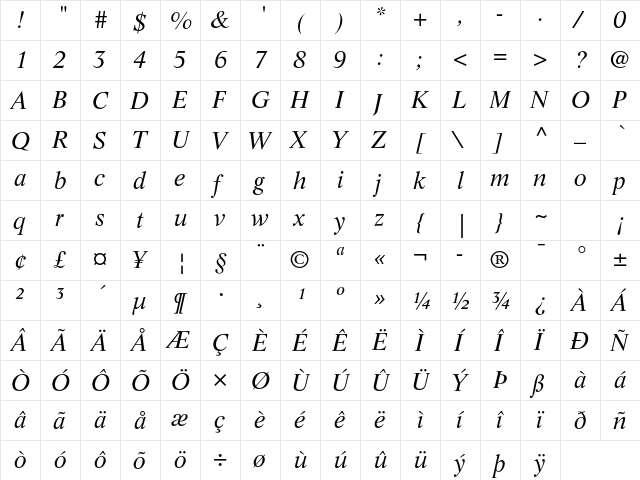
Life LT Std Italic
Italic ·  W. Bilz ·
DesignerW. Bilz
Design Context for Life LT Std Typeface
Life LT Std takes a measured approach to typography — its balanced proportions and neutral character make it a reliable workhorse for both digital and print work. The slanted form adds forward momentum and visual energy. The delicate stroke weight brings airiness and refinement to layouts.
Pro Tip: Try Life LT Std for annotation and caption copy alongside an upright companion — the contrast in angle creates a dynamic but ordered typographic system.